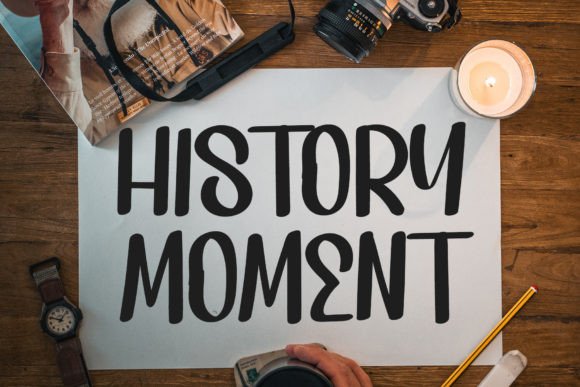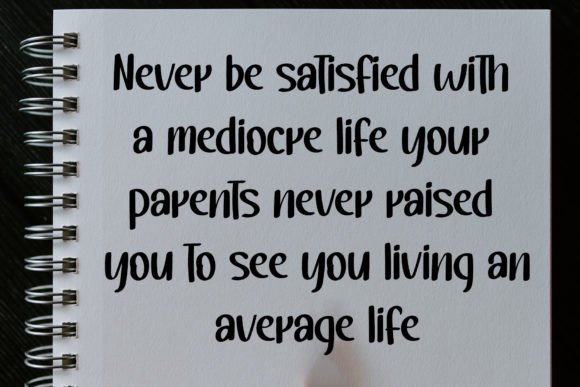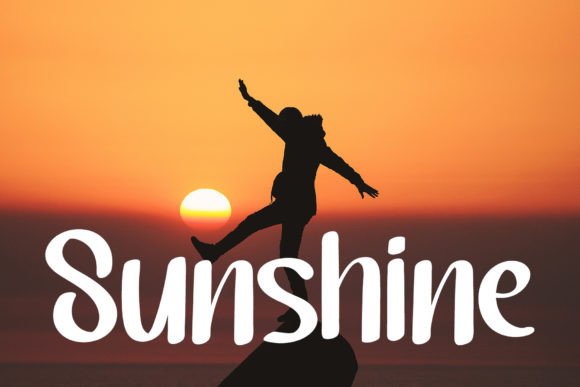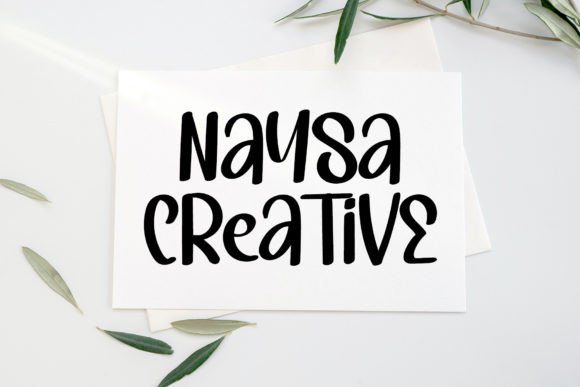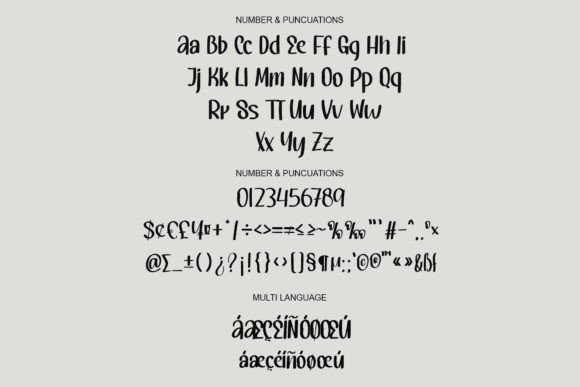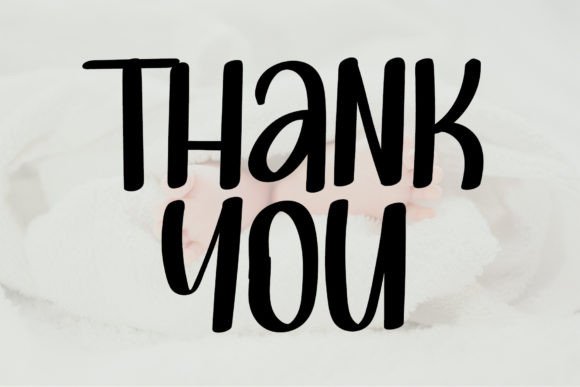
Baby Boho Font: Elevate Your Designs with a Minimal and Neat Display Font
In the world of typography, fonts play a crucial role in making or breaking a design. A perfect font can elevate your project from ordinary to extraordinary. If you’re a designer, crafter, or simply someone who loves to dabble in creative projects, you’re in luck! Introducing Baby Boho, a minimal and neat display font that’s about to become your new best friend.
What is Baby Boho Font?
Baby Boho is a thoughtfully crafted display font that’s designed to make your projects stand out. With its clean and minimalist aesthetic, this font is perfect for those who appreciate simplicity and elegance. Its neat lines and curves make it an excellent choice for a wide range of creative endeavors, from branding and advertising to crafting and DIY projects.
Key Features of Baby Boho Font
- Minimalist Design: Baby Boho boasts a simple yet stylish design that’s perfect for modern projects.
- Neat and Clean Lines: The font’s clean lines and curves make it easy to read and visually appealing.
- Versatile: Baby Boho can be used in a variety of projects, from digital designs to print materials.
- Elegant: The font’s elegant design makes it perfect for high-end branding and luxury projects.
Why Choose Baby Boho Font?
So, why should you choose Baby Boho font for your next project? Here are just a few compelling reasons:
- Easy to Read: Baby Boho’s clean design makes it easy to read, even at smaller font sizes.
- Highly Versatile: This font can be used in a wide range of projects, from digital designs to print materials.
- Unique and Creative: Baby Boho’s minimalist design makes it a great choice for creative projects that require a unique touch.
- Time-Saving: With Baby Boho, you can create stunning designs in no time, thanks to its easy-to-use and highly legible design.
How to Use Baby Boho Font in Your Projects
Using Baby Boho font in your projects is easy! Here are a few ideas to get you started:
- Branding and Logo Design: Use Baby Boho to create a stunning logo or brand identity that’s both modern and elegant.
- Social Media Graphics: Add a touch of sophistication to your social media graphics with Baby Boho.
- Digital Art: Use Baby Boho to add text to your digital art pieces, such as posters, flyers, and brochures.
- Crafting and DIY Projects: Baby Boho is perfect for crafting and DIY projects, such as making signs, labels, and cards.
Tips and Tricks for Using Baby Boho Font
Here are a few tips and tricks to help you get the most out of Baby Boho font:
- Experiment with Font Sizes: Don’t be afraid to experiment with different font sizes to find the perfect fit for your project.
- Pair with Other Fonts: Baby Boho pairs well with other fonts, so feel free to get creative and experiment with different combinations.
- Use in Combination with Images: Baby Boho looks great when used in combination with images, so try pairing it with your favorite photos or illustrations.
In conclusion, Baby Boho font is a versatile and elegant display font that’s perfect for a wide range of creative projects. Its minimalist design, neat lines, and curves make it easy to read and visually appealing. Whether you’re a designer, crafter, or simply someone who loves to dabble in creative projects, Baby Boho is a great choice. So why wait? Add Baby Boho to your creative toolkit today and watch your projects stand out!